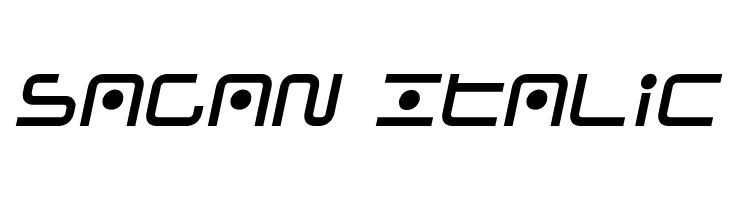
A bold, rounded font with a playful and friendly style.
An elegant serif font with a classic italic style, perfect for sophisticated designs.
( Fonts by Jen Jones )
A playful, rounded font with smooth curves and consistent stroke width.
A bold, handwritten font with a playful and informal style.
( Fonts by Cristiano Sobral - Personal-use only. For commercial use please contact owner. )
A classic serif font with semi-bold weight and italic style, offering elegance and readability.